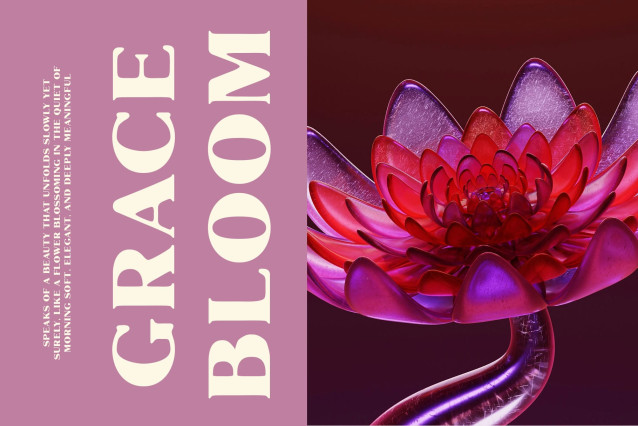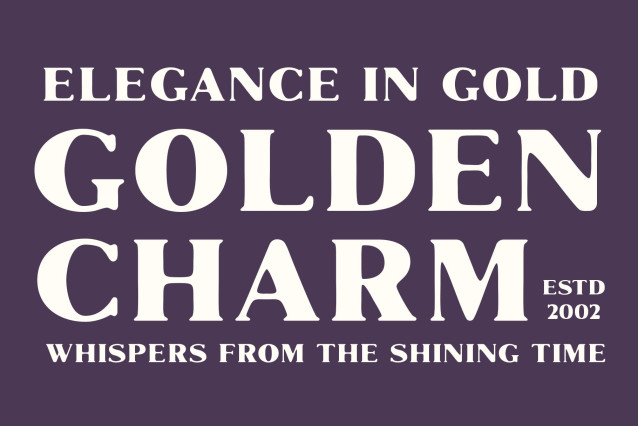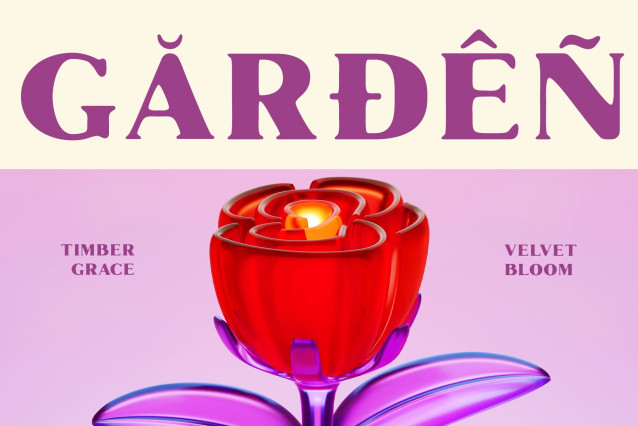
Marques Rounded Drawn Font
Marques Rounded Drawn Font is a modern classic serif font that combines bold, rounded letterforms with timeless elegance. The carefully designed curves and balanced proportions give this font a sophisticated, yet approachable feel, making it perfect for a wide range of creative applications. Its boldness ensures that it commands attention without overwhelming the design, striking the perfect balance between refinement and strength.